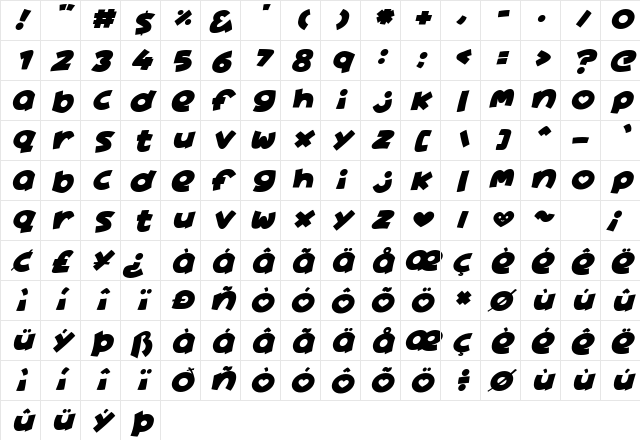
Lovely Cute is a composed and adaptable typeface that performs quietly and consistently across a wide range of design contexts. The slanted form adds forward momentum and visual energy.